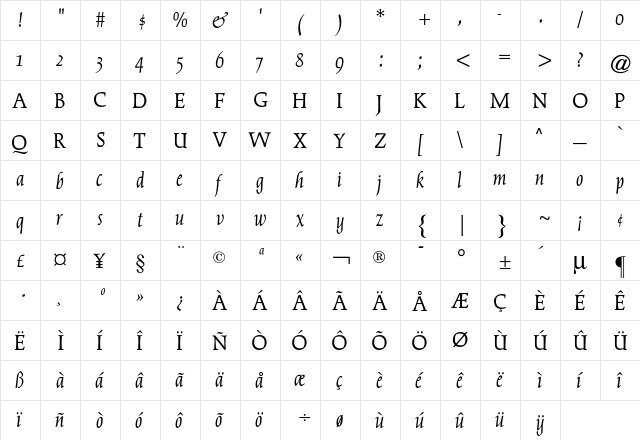
Cartier CG Italic
Cartier CG Italic Font Details
| Foundry | Miles Inc |
Design Context for Cartier CG Typeface
Cartier CG takes a measured approach to typography — its balanced proportions and neutral character make it a reliable workhorse for both digital and print work. The slanted form adds forward momentum and visual energy.